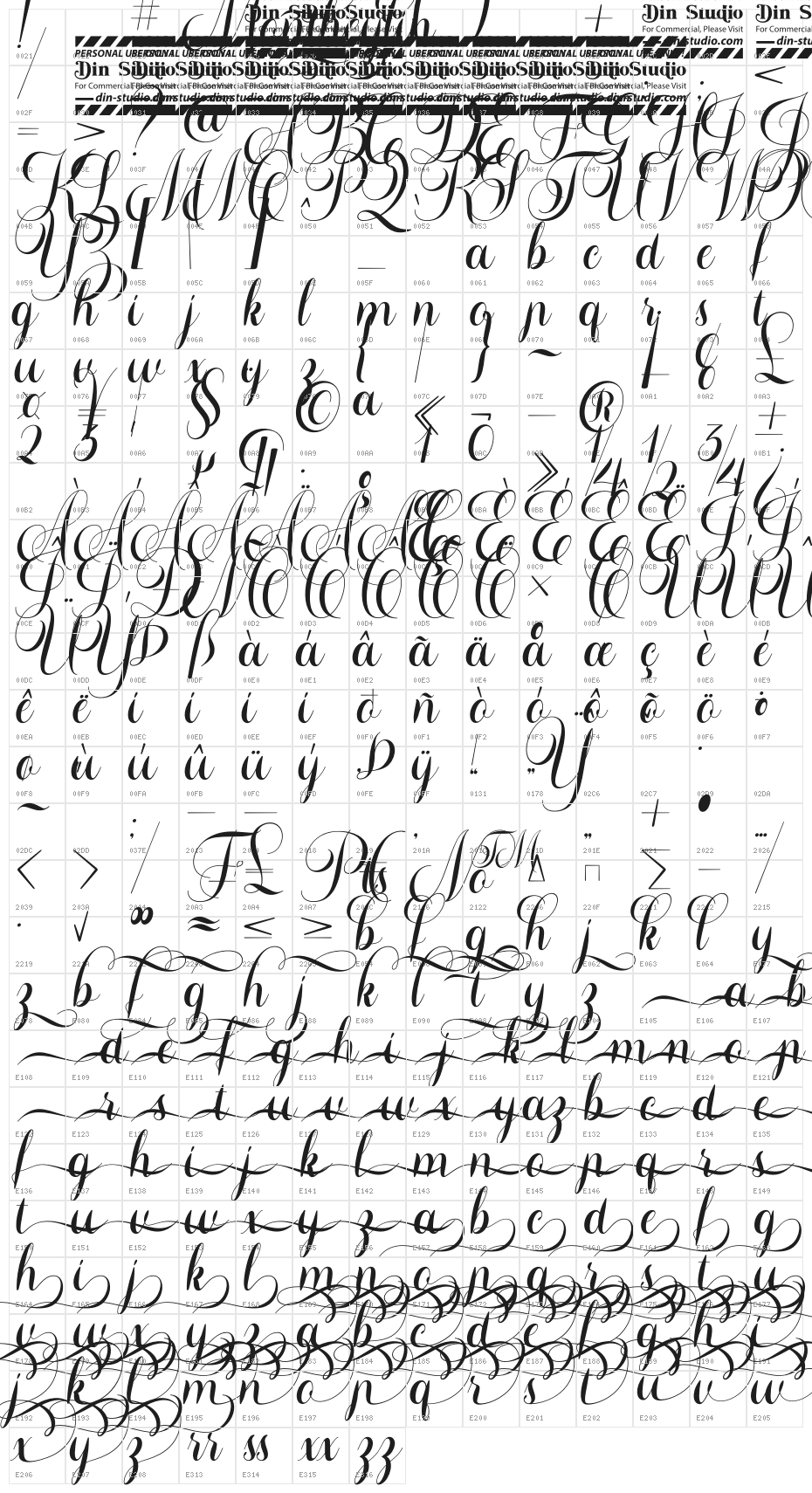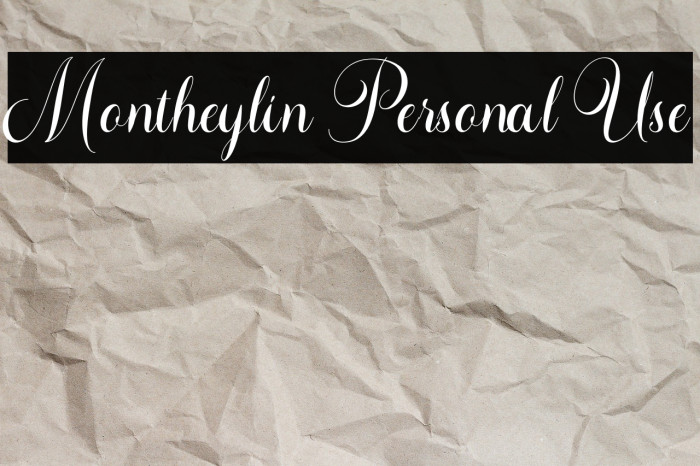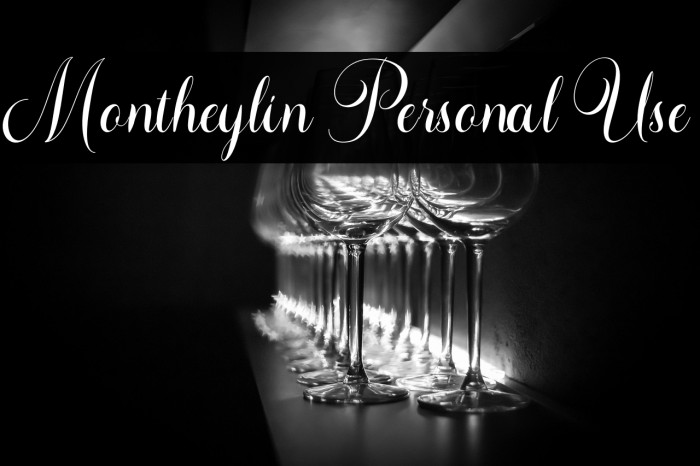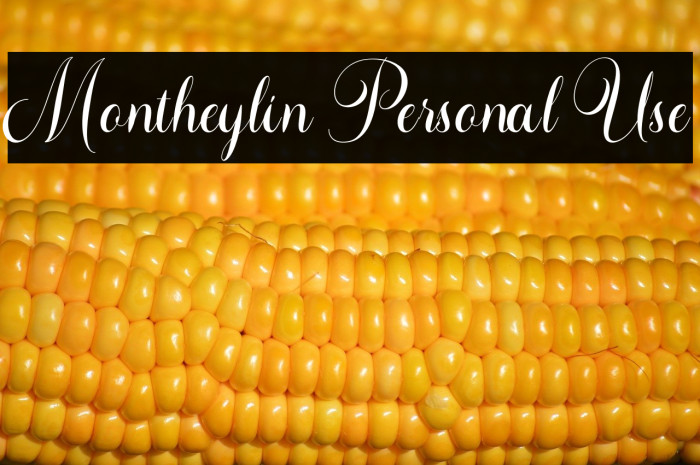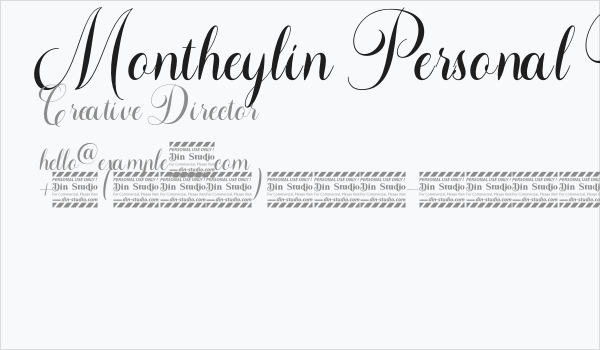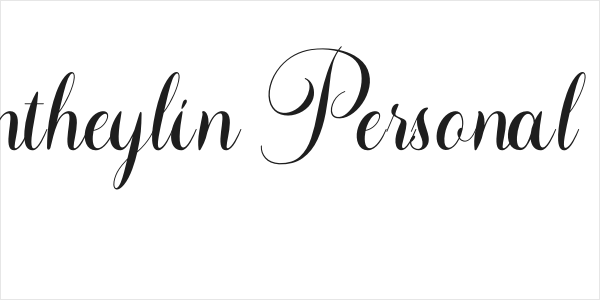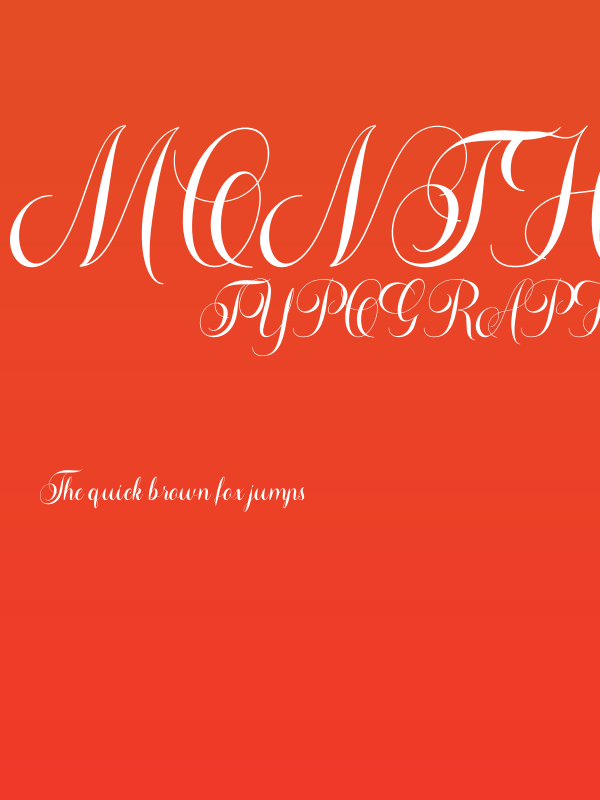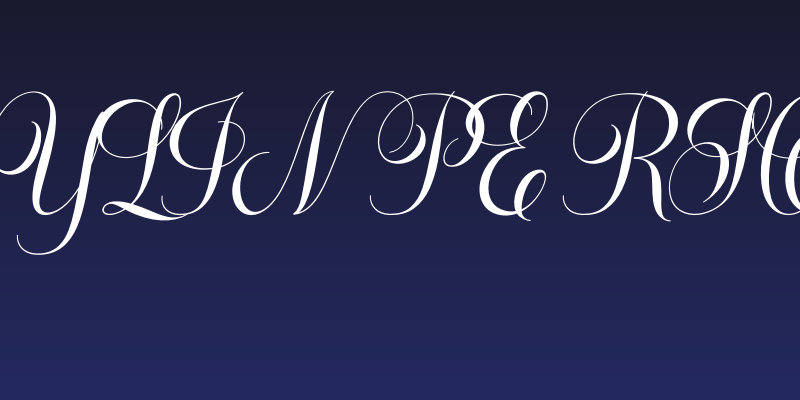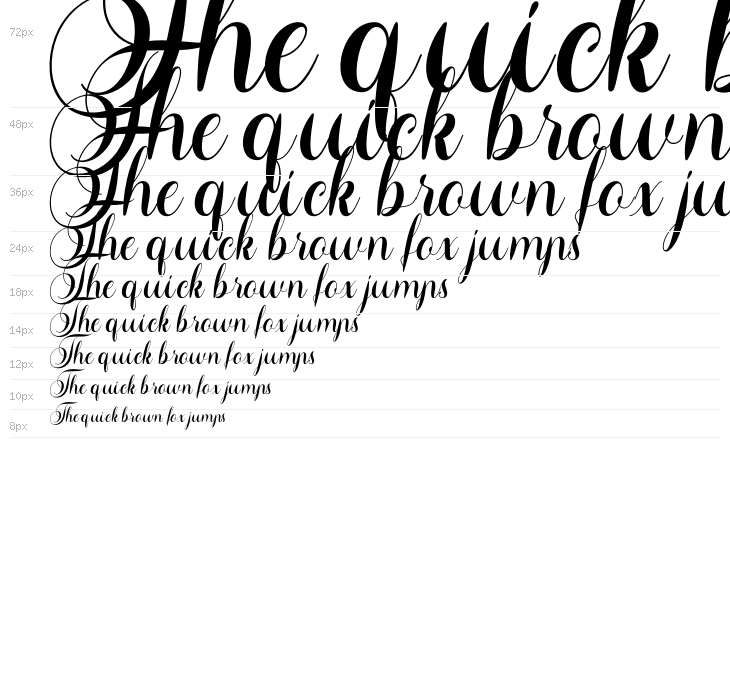
Montheylin Personal Use Font
Montheylin Personal Use Description
This elegant script font features a sophisticated and flowing design, characterized by its graceful curves and intricate details. The uppercase letters exhibit a high level of flourish, making them ideal for decorative purposes. The lowercase letters maintain a consistent style, with elongated ascenders and descenders that add to the font's overall elegance. The numerals and special characters are designed to complement the alphabet, ensuring a cohesive look across all text. This font is perfect for projects that require a touch of class and refinement.
| Overall Style | Elegant, Decorative |
| Proposed Projects | Ideal for wedding invitations, luxury branding, elegant signage, and decorative print materials. |